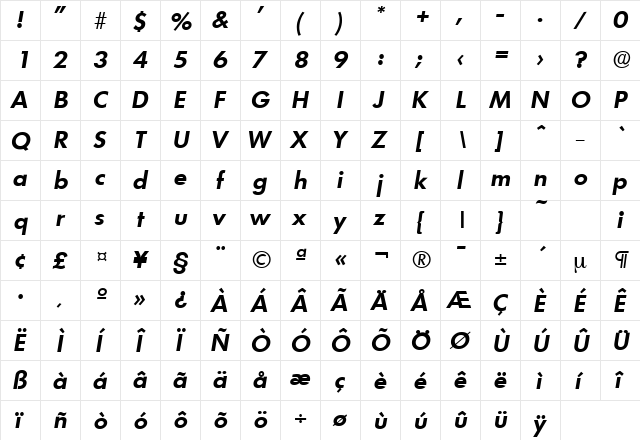
Limerick-Serial BoldItalic Font Preview
Design Context for Limerick-Serial Typeface
Limerick-Serial takes a measured approach to typography — its balanced proportions and neutral character make it a reliable workhorse for both digital and print work. The dynamic lean of this cut emphasises speed and emphasis in any layout. The heavy weight commands attention and anchors typographic hierarchies.
Pro Tip: Use Limerick-Serial for emphasis, pull quotes, and subheadings where its slanted energy can add rhythm to the layout.